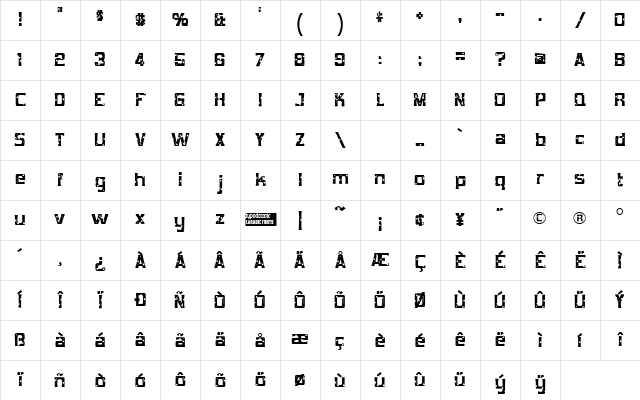
Mob Concrete Regular
Design Context for Mob Concrete
Mob Concrete is a composed and adaptable typeface that performs quietly and consistently across a wide range of design contexts.